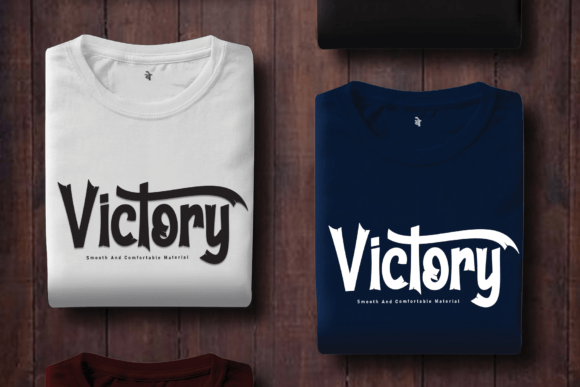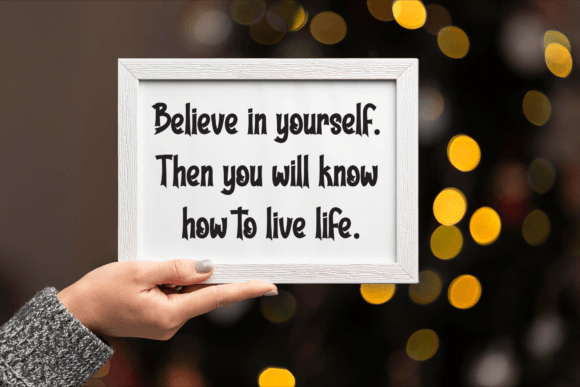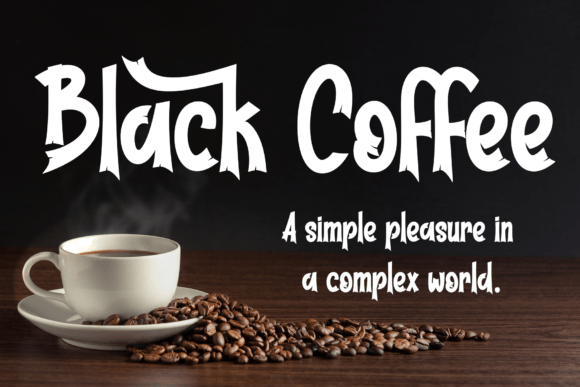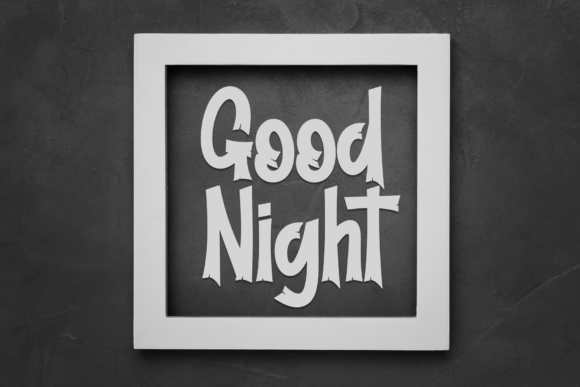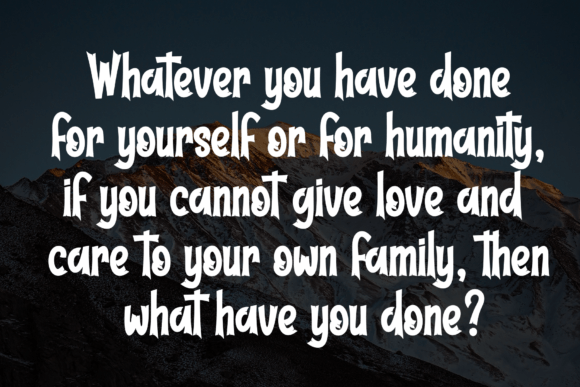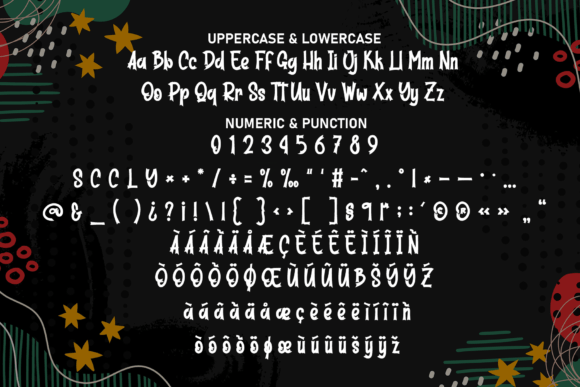
Introducing Black History Font: The Ultimate Modern Handwritten Font
Are you tired of using the same old fonts for your design projects? Look no further than the Black History Font, a modern, bold handwritten font that combines contemporary style with a personal touch. This font is perfect for designers, crafters, and anyone looking to add a dynamic and unique flair to their work.
What Makes Black History Font Stand Out?
The Black History Font is a game-changer in the world of typography. Its strong, smooth strokes make it perfect for a wide range of design projects, from logos and posters to social media graphics and more. This font stands out with its confident and artistic look, making it ideal for anyone looking to make a statement.
Key Features of Black History Font
- Modern and Bold: The Black History Font is a modern, bold handwritten font that is sure to turn heads.
- Contemporary Style: With its unique and stylish design, this font combines contemporary style with a personal touch.
- Strong and Smooth Strokes: The font’s strong, smooth strokes make it perfect for adding a dynamic and unique flair to any design project.
- Versatile: The Black History Font is ideal for a wide range of design projects, including logos, posters, social media graphics, and more.
Why Designers and Crafters Love Black History Font
Designers and crafters love the Black History Font for its versatility and unique style. Whether you’re creating a logo, poster, or social media graphic, this font is sure to make your design stand out. Its confident and artistic look makes it perfect for anyone looking to add a personal touch to their work.
How to Use Black History Font in Your Design Projects
Using the Black History Font in your design projects is easy. Here are a few tips to get you started:
- Pair it with Other Fonts: Pair the Black History Font with other fonts to create a unique and stylish design.
- Use it for Headlines: Use the Black History Font for headlines and titles to add a bold and eye-catching touch to your design.
The Benefits of Using Black History Font
There are many benefits to using the Black History Font in your design projects. Here are a few:
- Unique Style: The Black History Font offers a unique and stylish design that is sure to make your work stand out.
- Versatility: This font is versatile and can be used for a wide range of design projects.
- Easy to Read: The font’s strong, smooth strokes make it easy to read, even at small sizes.
In conclusion, the Black History Font is a modern, bold handwritten font that combines contemporary style with a personal touch. Its strong, smooth strokes make it perfect for adding a dynamic and unique flair to any design project. Whether you’re a designer, crafter, or just someone looking to add a personal touch to your work, this font is sure to be a game-changer.
Get Ready to Elevate Your Design with Black History Font
Don’t settle for boring, generic fonts. Elevate your design with the Black History Font, a unique and stylish font that is sure to make your work stand out. With its modern and bold design, this font is perfect for anyone looking to add a dynamic and unique flair to their design projects.